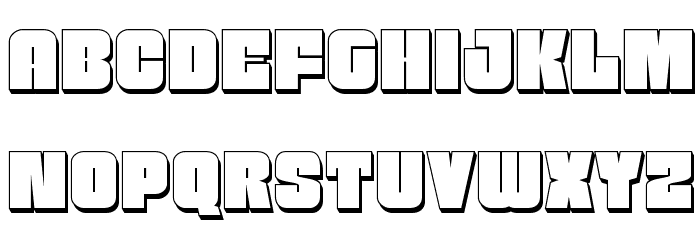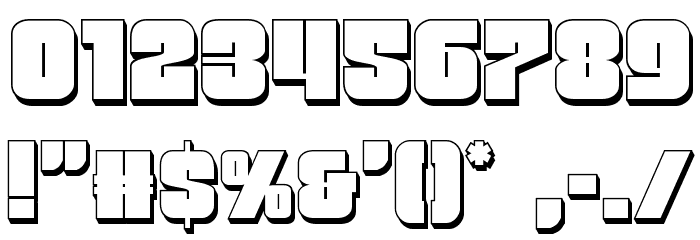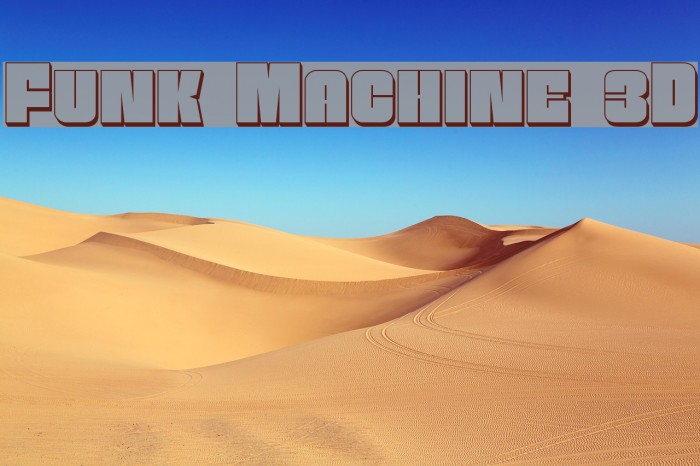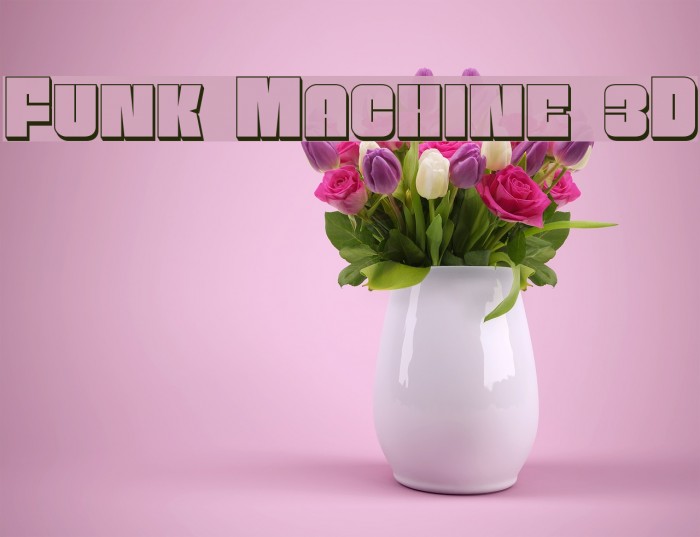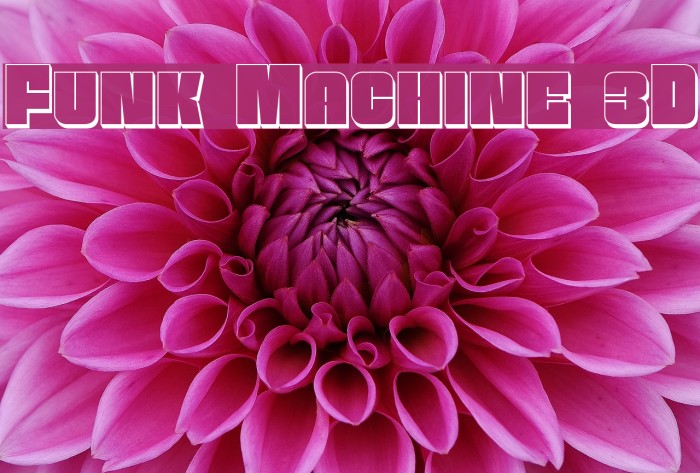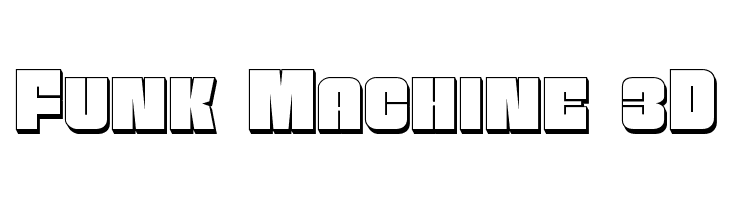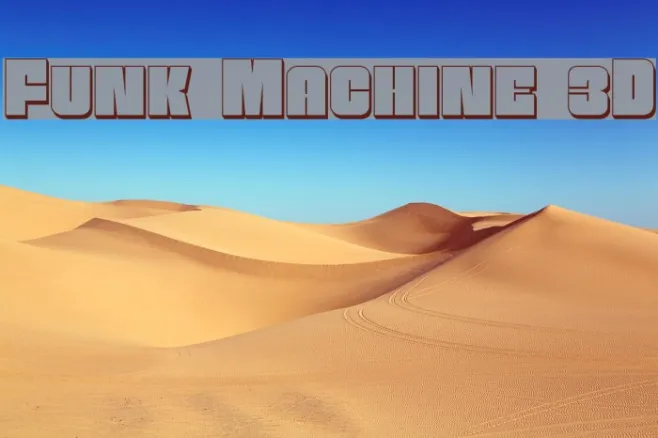
Funk Machine 3D Font
This font features a bold, three-dimensional design that gives each character a striking and impactful appearance. The letters are blocky and robust, with a strong presence that makes them stand out. The 3D effect is achieved through a clever use of shadows and outlines, adding depth and a sense of movement to the text. The uppercase and lowercase letters maintain a consistent style, with sharp edges and a geometric structure. Numbers and special characters are designed with the same attention to detail, ensuring uniformity across all elements. This font is ideal for projects that require a bold and dynamic look, such as posters, headlines, and branding materials.
A bold, 3D font with a strong, geometric design and impactful presence.
- Proposed Projects: Ideal for posters, headlines, branding, and any project needing a dynamic, eye-catching font.